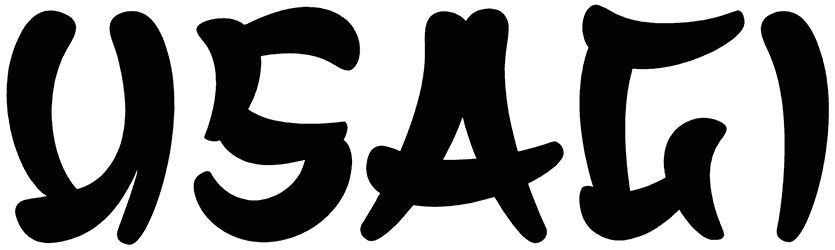
Usagi Font
The powerful and impressive vibe of a Japanese typographic font like the Usagi font will differentiate your design from similar projects. The letters in samurai font will have a swingy form with a cool vibe. This Asian font, without numbers, is a good item for many layouts, like a movie poster, a hoodie, or other creative designs.